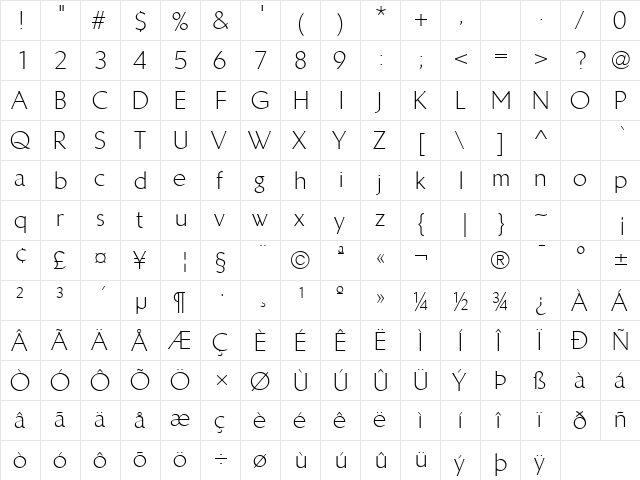
LTBrewery Light Regular Font Preview
LTBrewery Light Regular
Design Context for LTBrewery Light Typeface
LTBrewery Light takes a measured approach to typography — its balanced proportions and neutral character make it a reliable workhorse for both digital and print work. Its slender proportions lend an understated elegance to any composition.